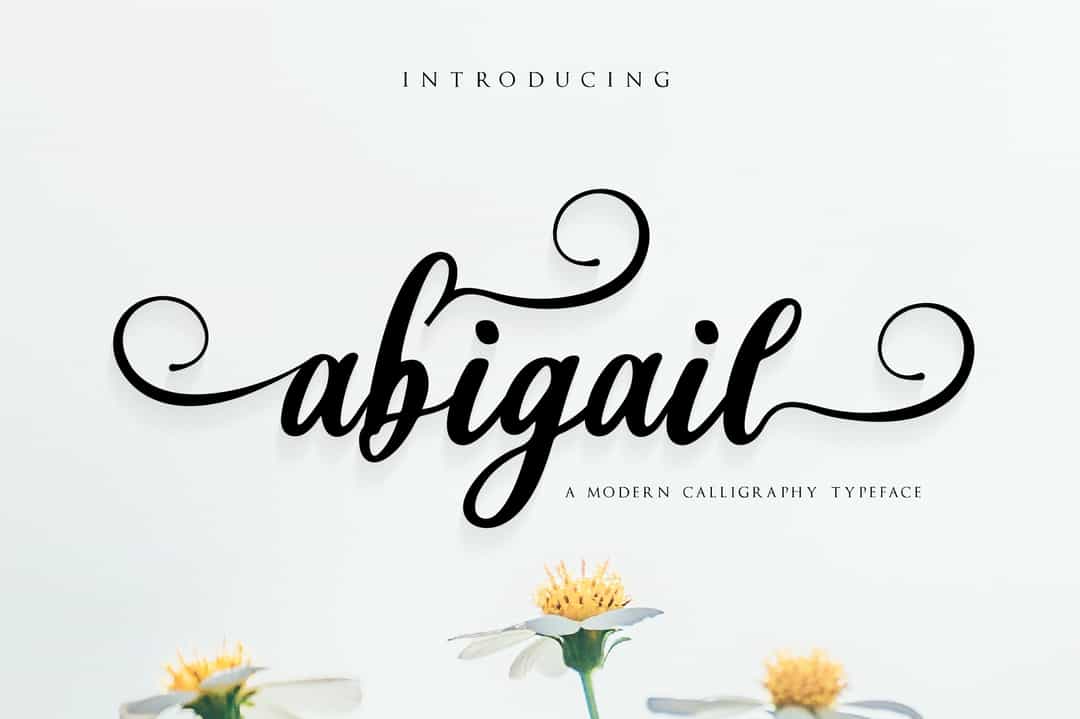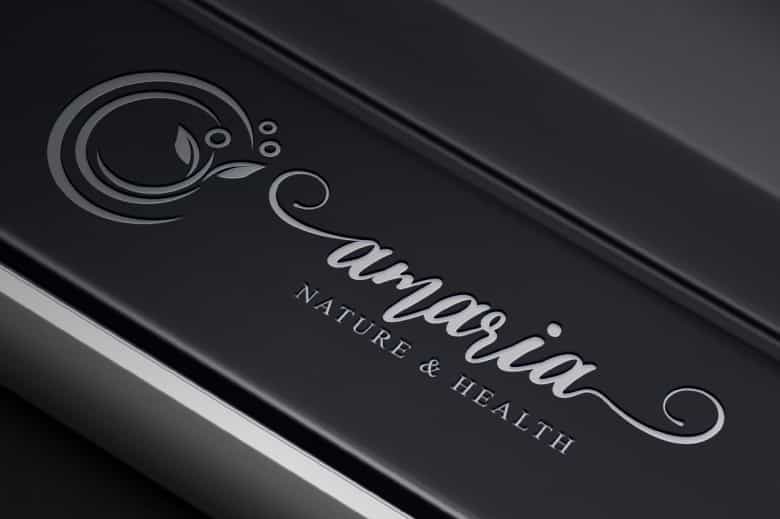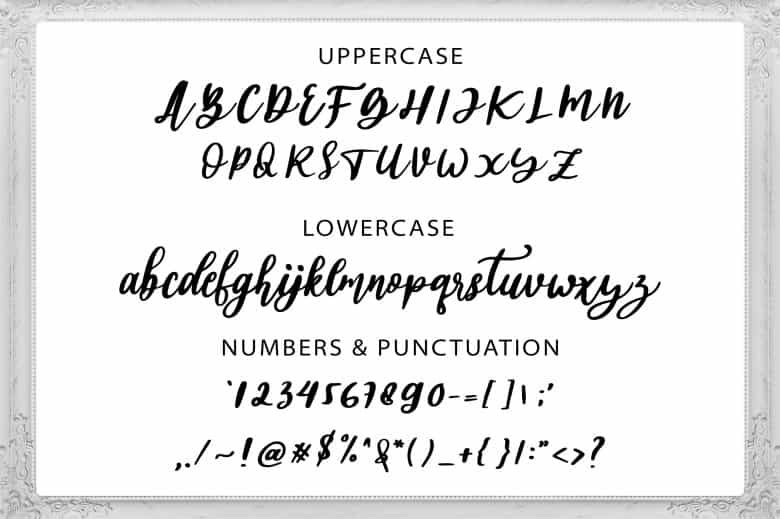
Abigail is an elegant script calligraphy font style, adding an individualistic touch to your next art work with its sophisticated, elegant, and contemporary feel. Abigail is an outstanding typographic that works great for logos and branding logos for wedding invitations, stationery, themes etc.